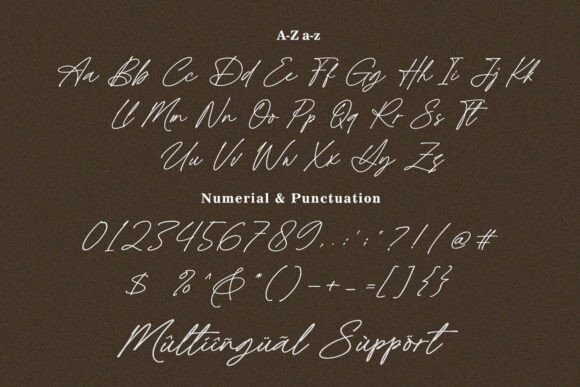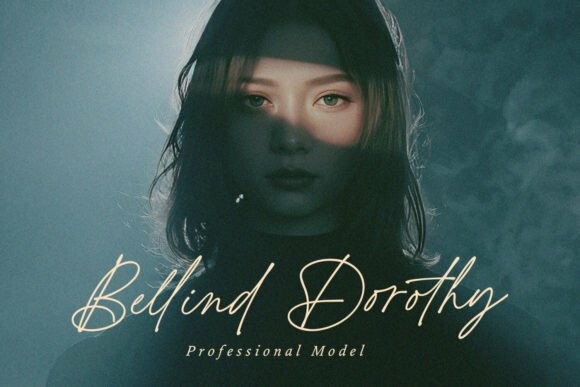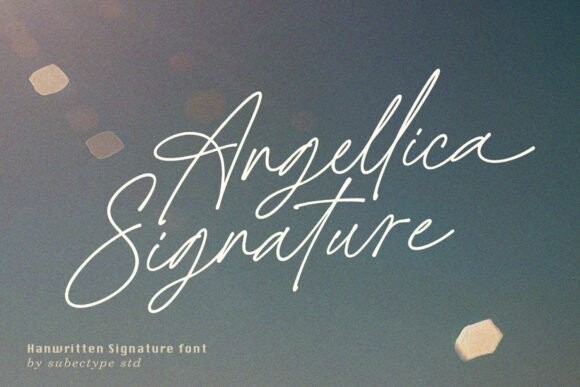
Angellica Signature Font
Designer: Subectype
Angellica Signature font, a handwritten signature font. For those of you who need a touch of a clean handwritten signature, chic and modern for your designs, this font was created for you!
Angellica Signature was built with beautiful ligatures.